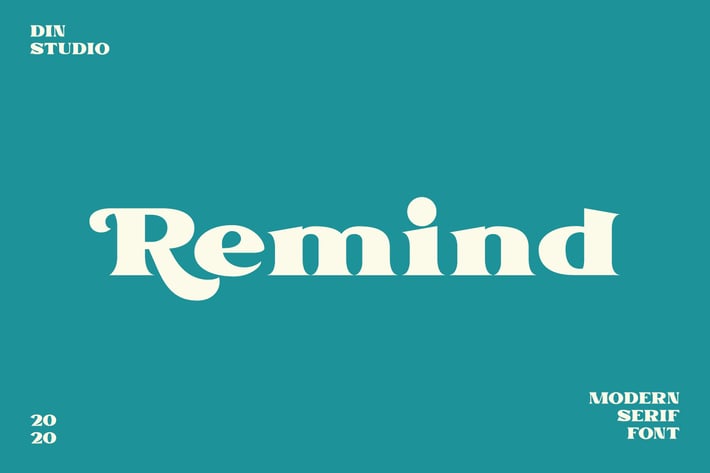
Remind-Modern Serif Font
Din-Studio
Introducing Remind Font. Remind is a modern serif font. Create from our talented font designer. The design of typeface will make your design more beautiful and inspiring. This font will suitable for any project, like branding, print template, logo and etc.